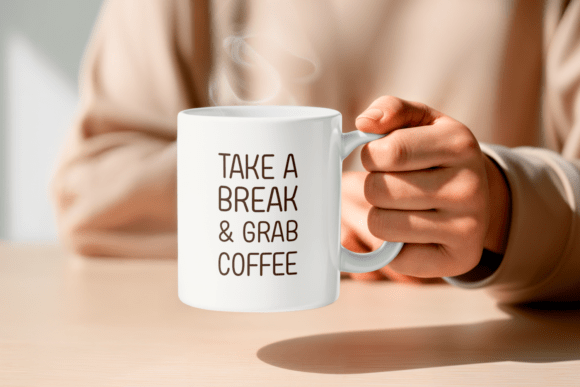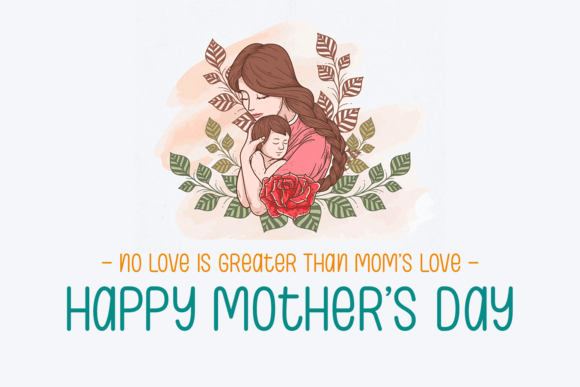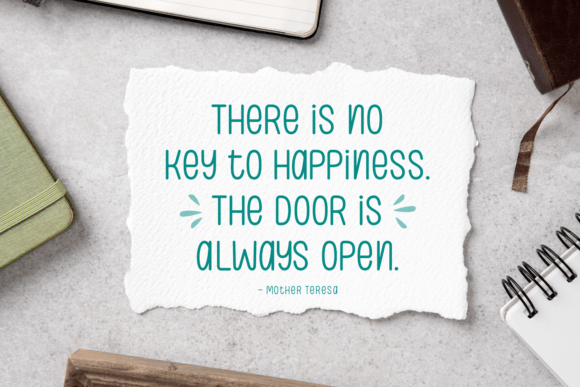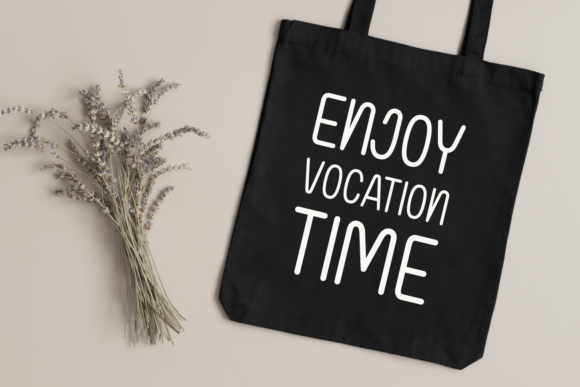
Never Escape Font
Never Escape is charming and unique handwritten font, delicately designed to cater to a variety of niche requirements. It’s captivating curves and simple, clean characters offer a trendy yet timeless edge to any project. Ideal for Mother’s Day or spring-inspired designs, it lends itself well to endearing quotes, seasonal greetings, t-shirt prints or heart-touching book covers.
It shines as a versatile branding tool, ideal to make cards, magazines, or holiday-themed displays truly stand out. The Never Escape font also brilliantly meets educational needs with its exceptional suitability as a refreshing school or teacher font. A seamless blend of style meets function, it’s the perfect addition to your design toolbox.